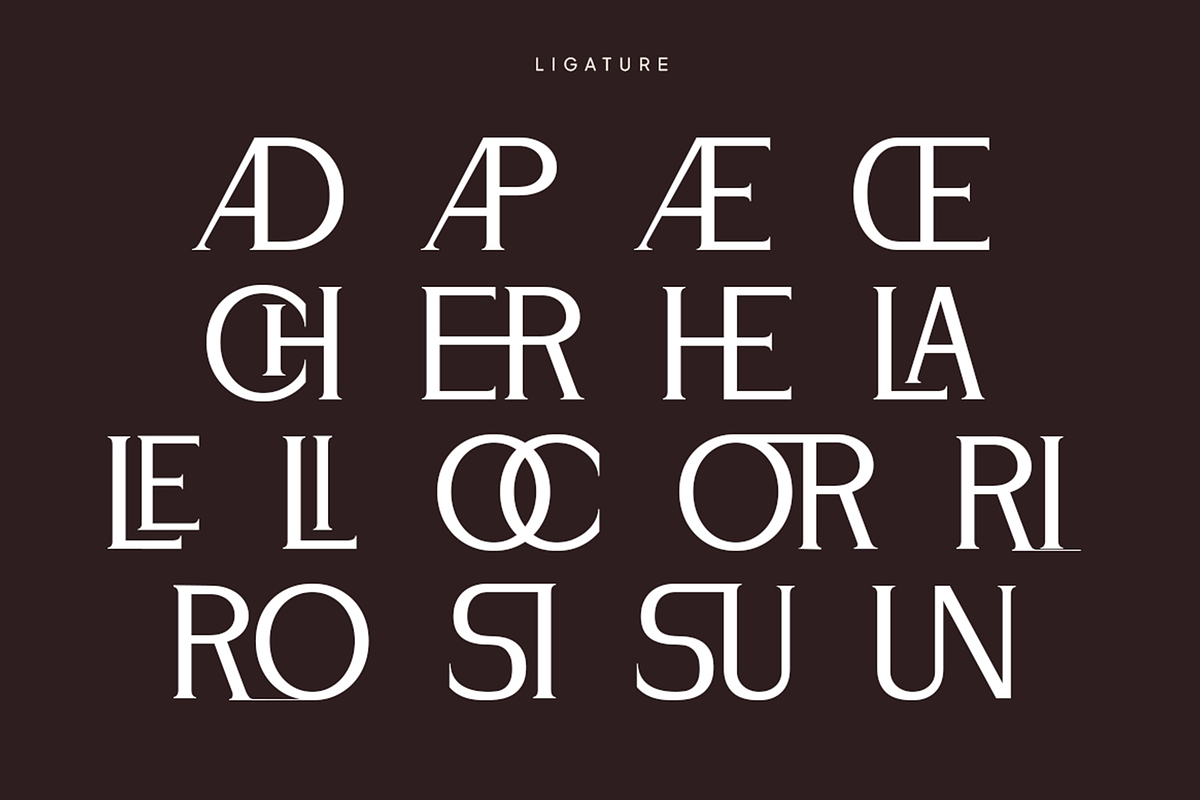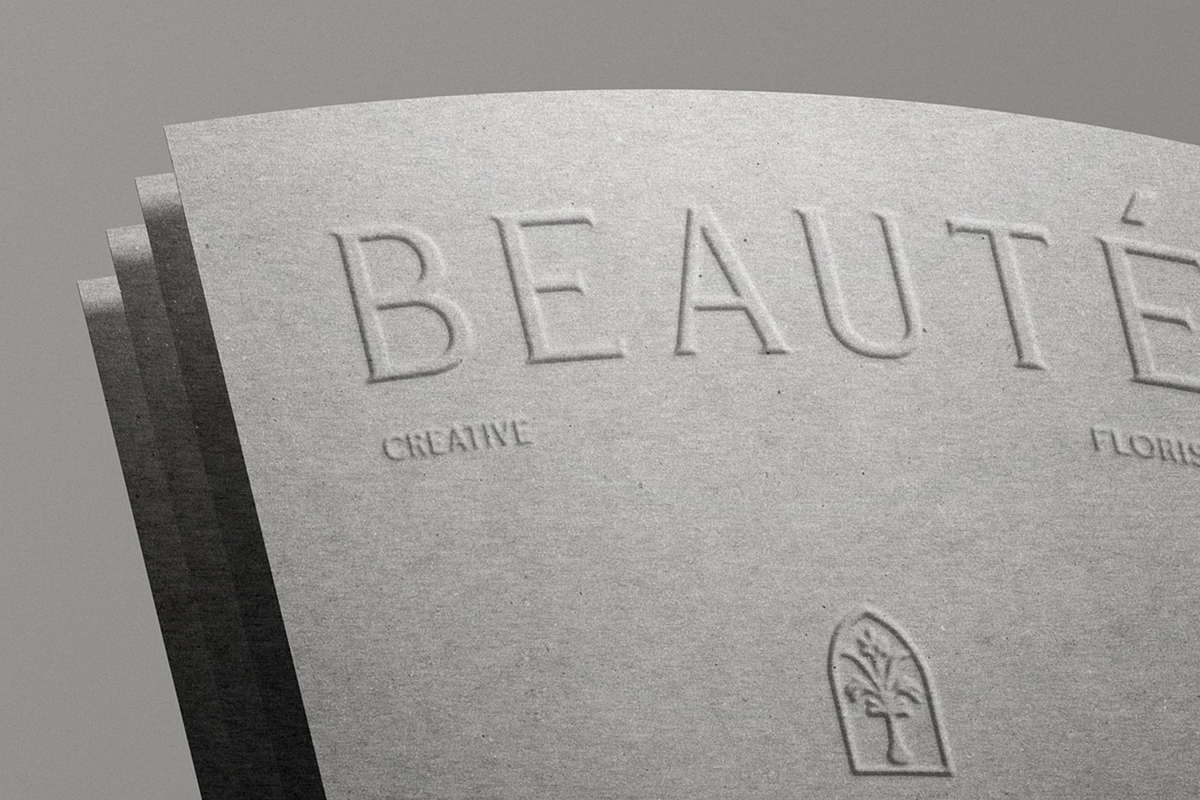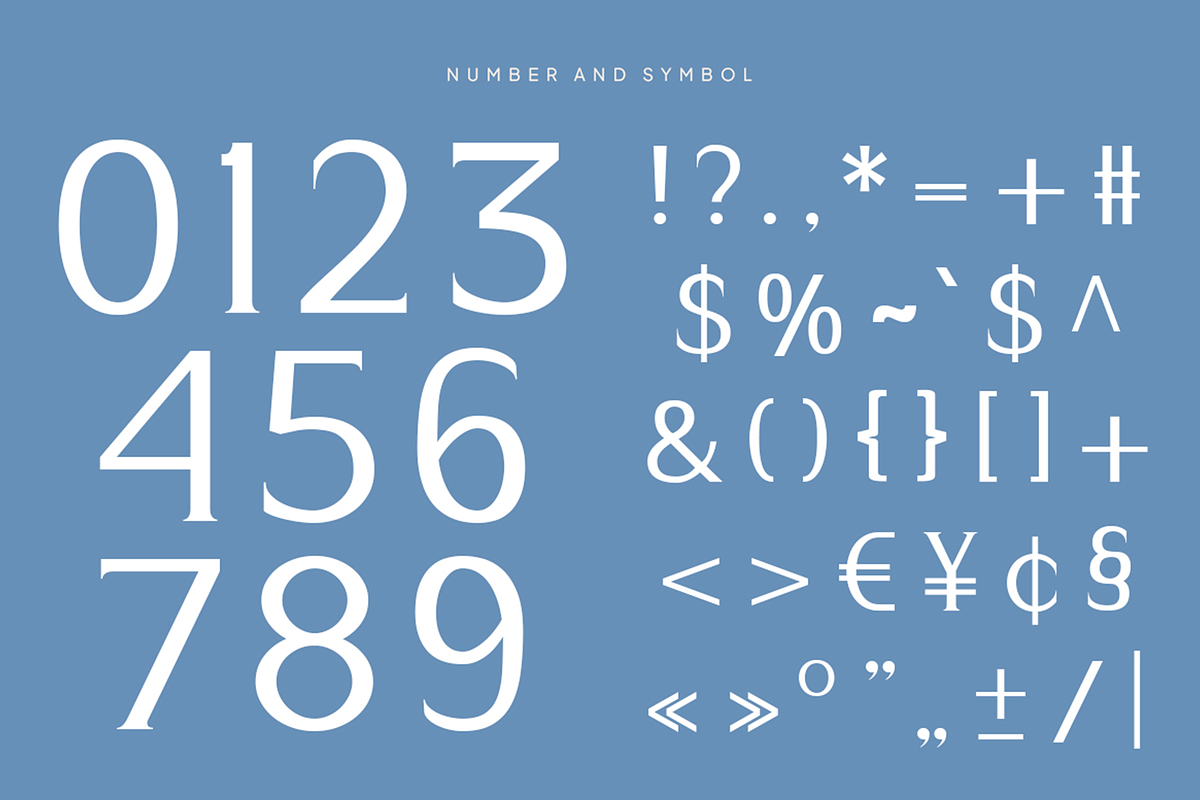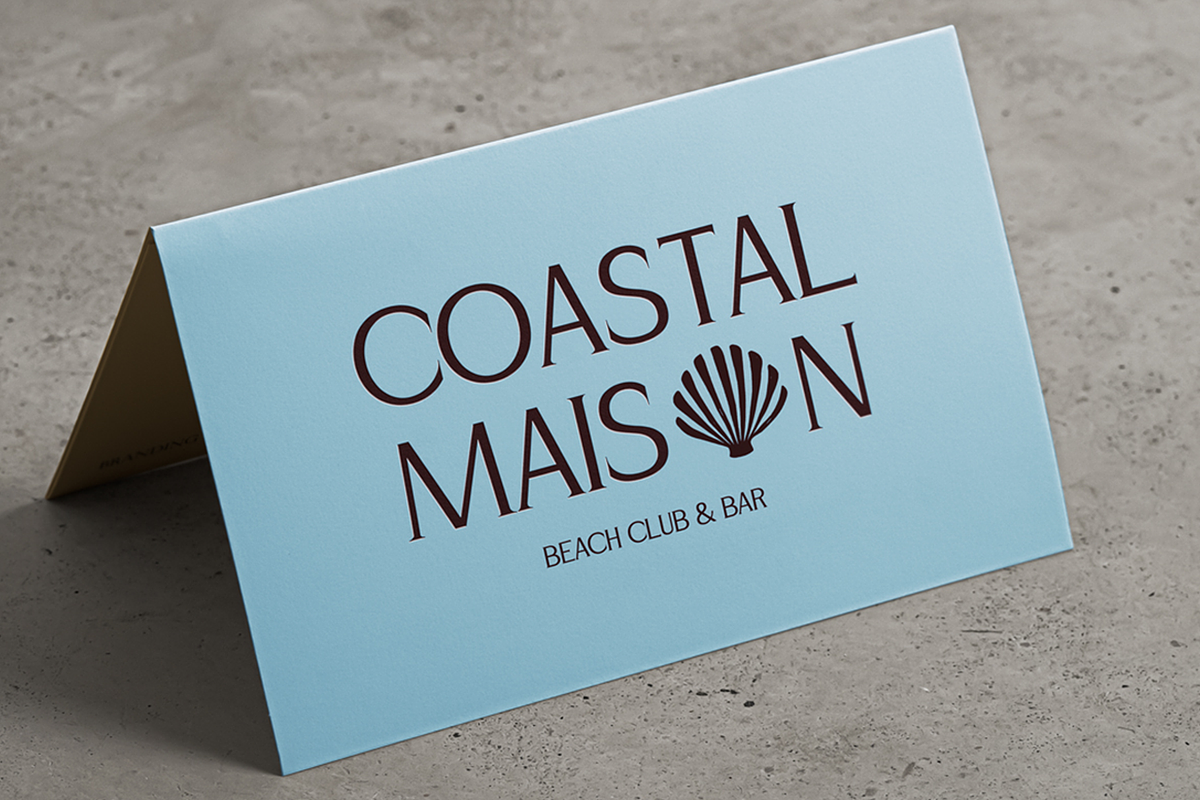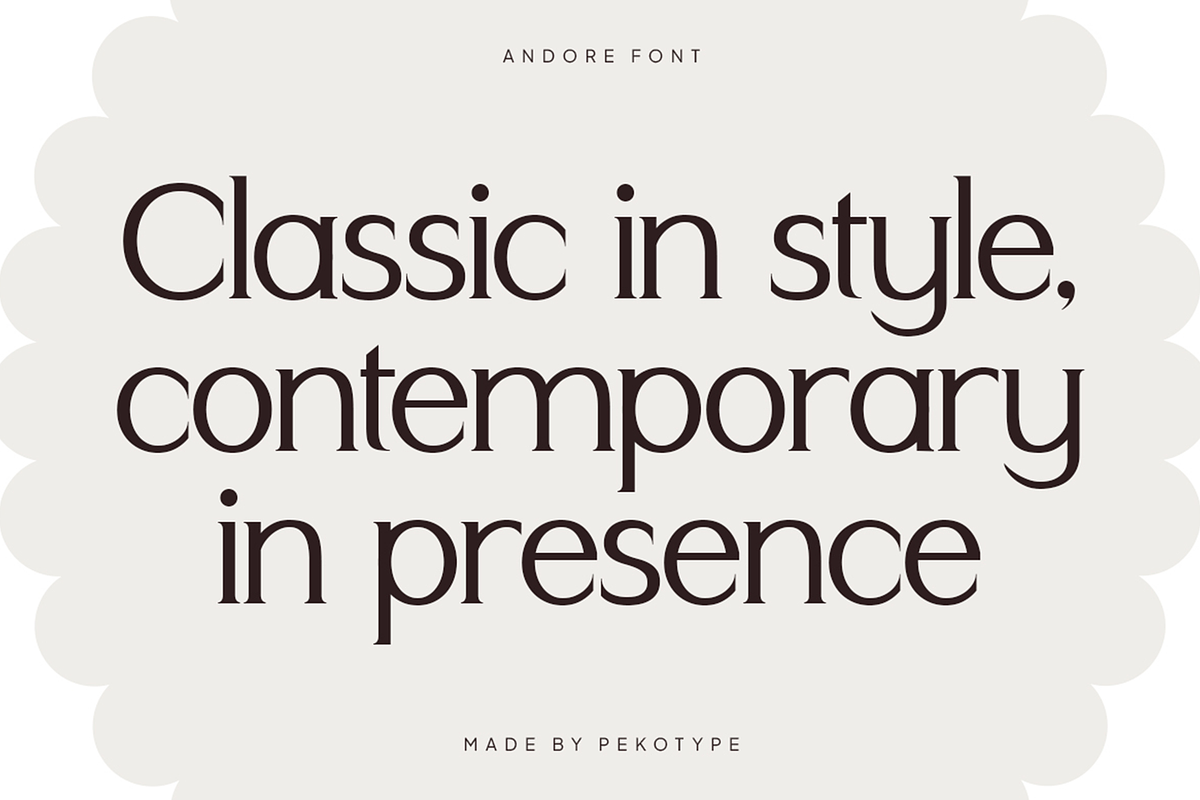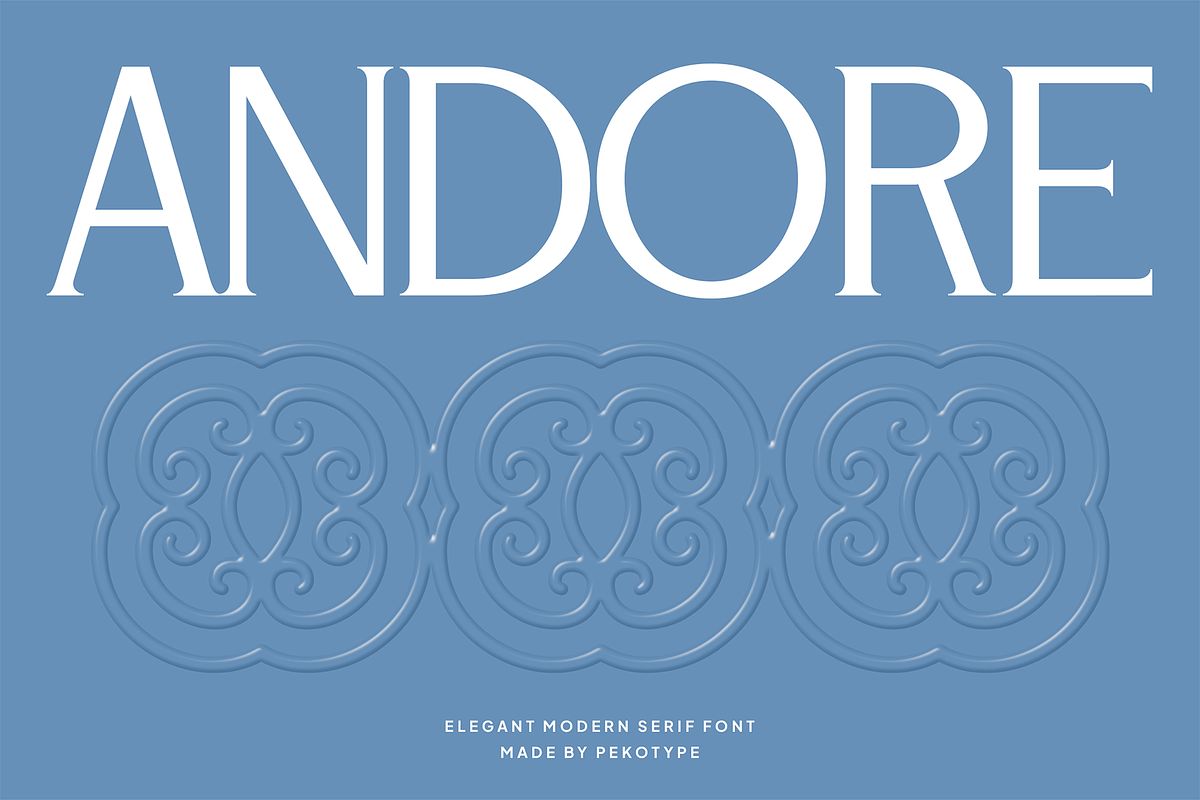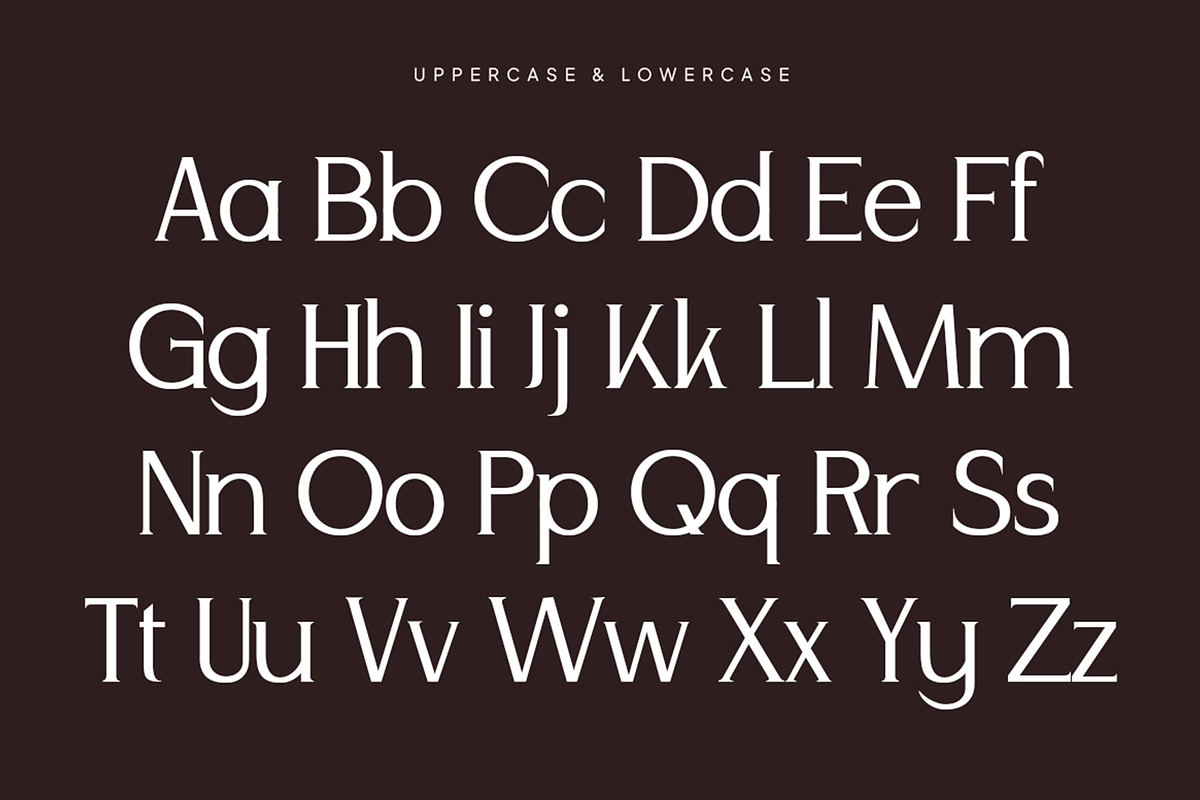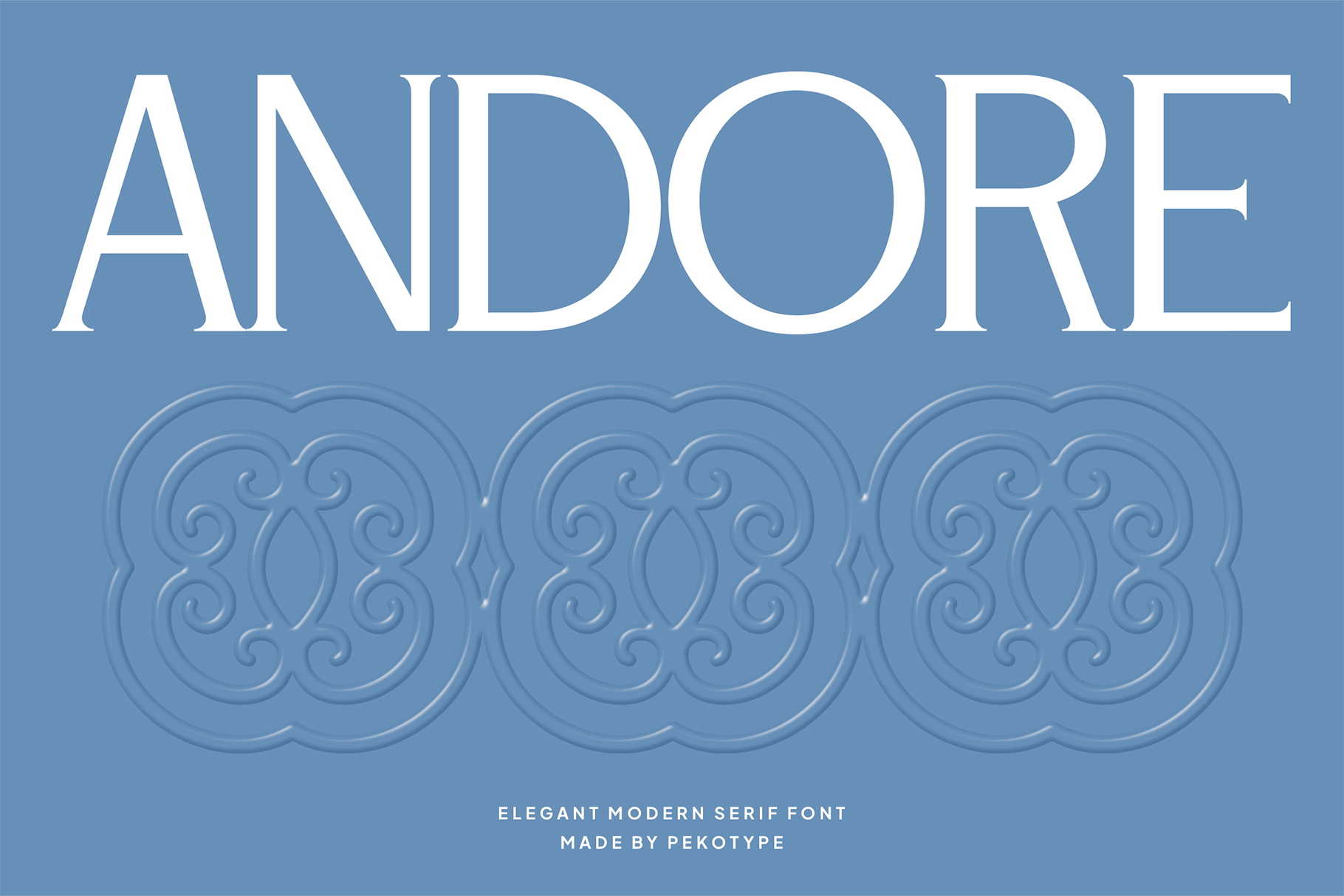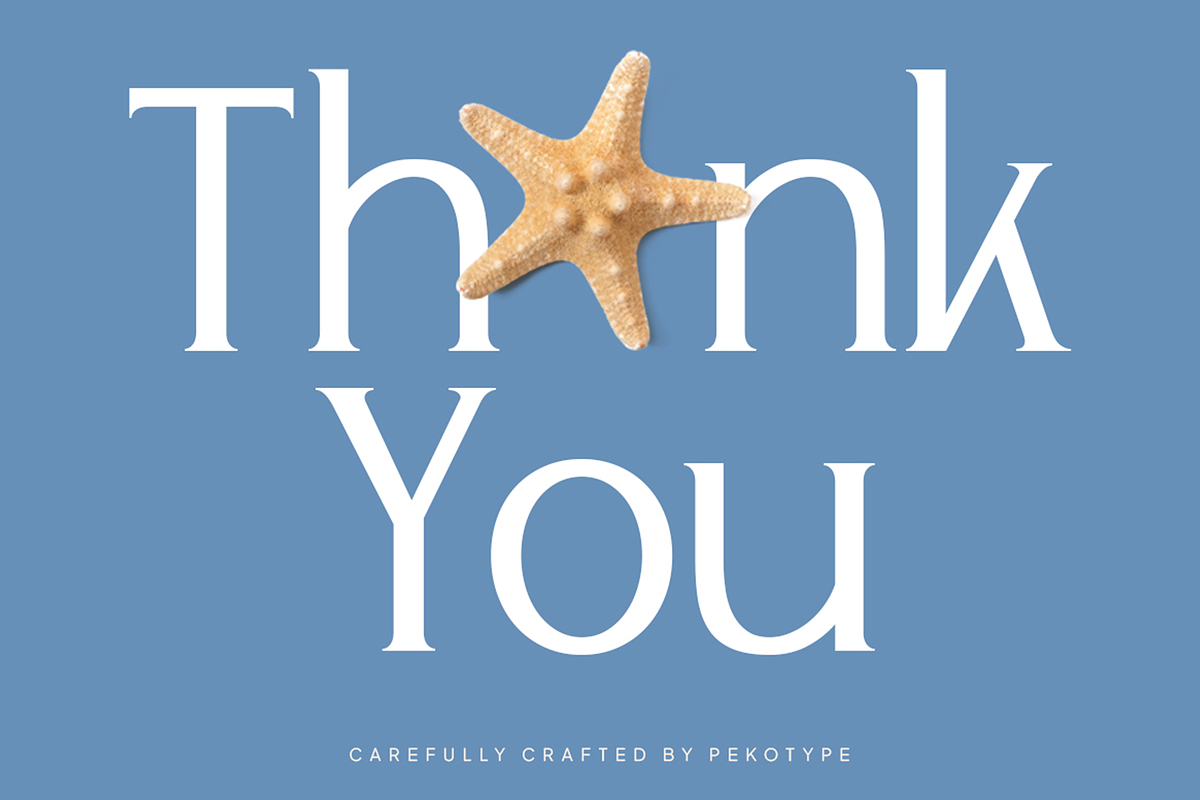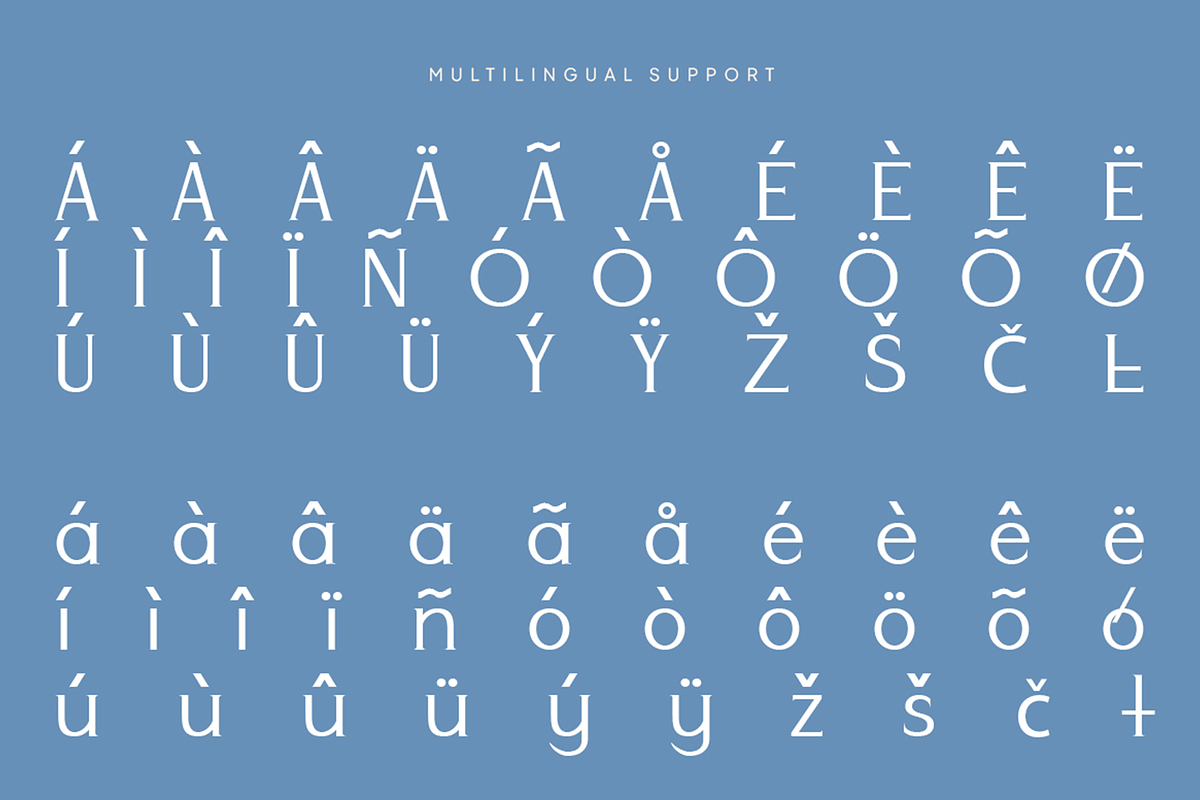
Andore - Elegant Modern Serif Font
ANDORE is a modern serif font designed to bring a touch of elegance to your work. Its smooth curves and well-balanced letterforms create a look that feels classic, clean, and effortlessly stylish.
Use ANDORE for logos, branding, invitations, menus, editorials, packaging, social media graphics, and creative projects that need a graceful and professional appearance. It's a versatile font that works beautifully across many design styles.
Number, Symbol, & Punctuation